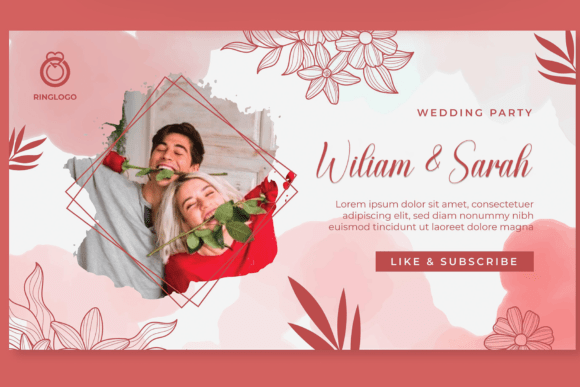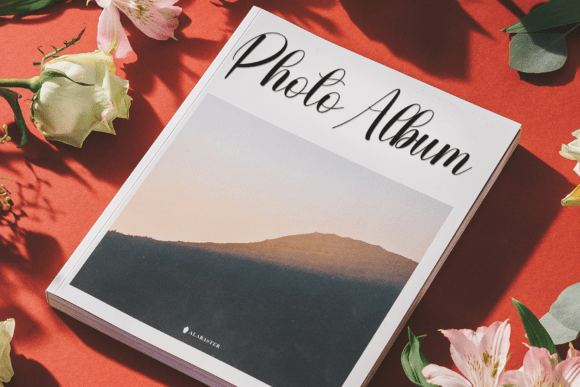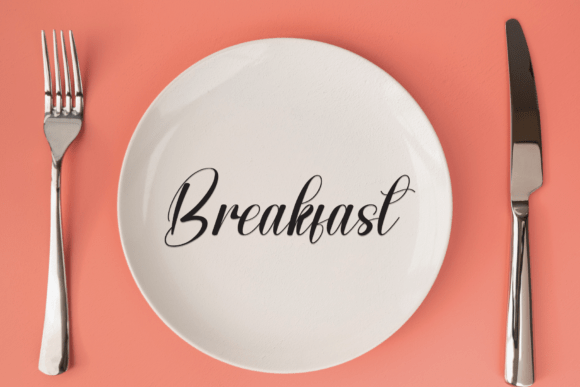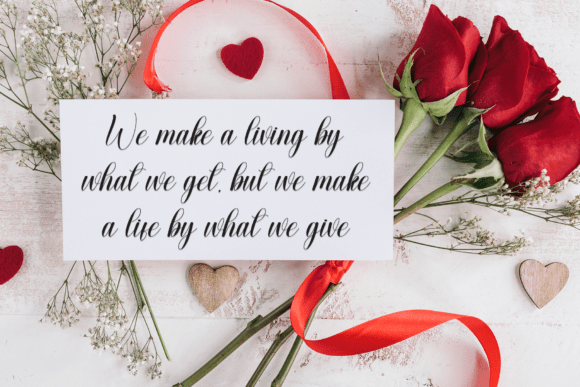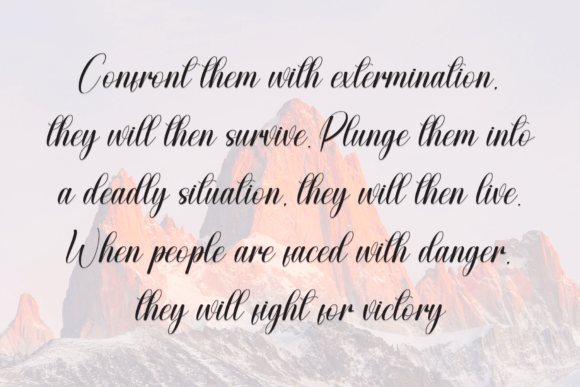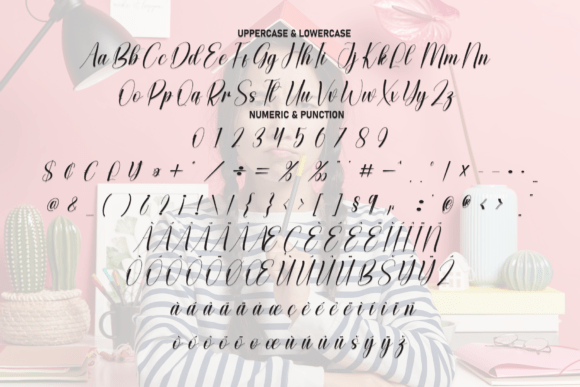
Diligent Font: The Sweet and Friendly Handwritten Script Font
Are you looking for a font that can add a touch of playfulness and whimsy to your designs? Look no further than the Diligent Font, a beautiful handwritten script font that is characterized by its sweetness and friendliness. In this article, we’ll take a closer look at the Diligent Font, its features, and how you can use it to bring joy and creativity into your designs.
What is Diligent Font?
The Diligent Font is a carefully crafted handwritten script font that is designed to bring a sense of playfulness and charm to your projects. Its sweet and friendly nature makes it perfect for a variety of design applications, from wedding invitations and greeting cards to social media graphics and blog posts.
Key Features of Diligent Font
- Handwritten Script Style: The Diligent Font features a beautiful handwritten script style that is both elegant and playful.
- Sweet and Friendly Nature: The font’s sweet and friendly nature makes it perfect for designs that require a personal touch.
- Playful Charm: The Diligent Font is designed to add a touch of playfulness and whimsy to your designs.
- Versatile: The font is versatile and can be used for a variety of design applications, from print to digital.
Uses of Diligent Font
The Diligent Font is perfect for a variety of design applications, including:
- Wedding Invitations: The font’s sweet and friendly nature makes it perfect for wedding invitations and other wedding-related designs.
- Greeting Cards: The Diligent Font is ideal for greeting cards, including birthday cards, holiday cards, and more.
- Social Media Graphics: The font’s playful nature makes it perfect for social media graphics, including Facebook posts, Instagram stories, and more.
- Blog Posts: The Diligent Font can be used to add a touch of personality to blog posts and articles.
Why Choose Diligent Font?
There are many reasons why you should choose the Diligent Font for your next design project. Here are a few:
- Unique and Creative: The Diligent Font is a unique and creative font that can help your designs stand out.
- Easy to Read: The font is easy to read, making it perfect for designs that require a lot of text.
- Customizable: The Diligent Font is customizable, allowing you to adjust the font size, color, and style to fit your design needs.
Tips for Using Diligent Font
Here are a few tips for using the Diligent Font in your designs:
- Use it for Headings and Titles: The Diligent Font is perfect for headings and titles, where you want to add a touch of personality to your design.
- Pair it with Other Fonts: The font can be paired with other fonts to create a unique and creative design.
- Experiment with Colors: The Diligent Font can be used with a variety of colors, so don’t be afraid to experiment and find the perfect color for your design.
The Diligent Font is a beautiful handwritten script font that is perfect for designers and crafters who want to add a touch of playfulness and whimsy to their designs. Its sweet and friendly nature makes it ideal for a variety of design applications, from wedding invitations and greeting cards to social media graphics and blog posts. With its unique and creative style, ease of use, and customizability, the Diligent Font is a great choice for any design project.
In conclusion, the Diligent Font is a great choice for designers and crafters who want to add a touch of personality to their designs. Its sweet and friendly nature, playful charm, and versatility make it perfect for a variety of design applications. So why not give it a try and see how it can bring joy and creativity into your designs?